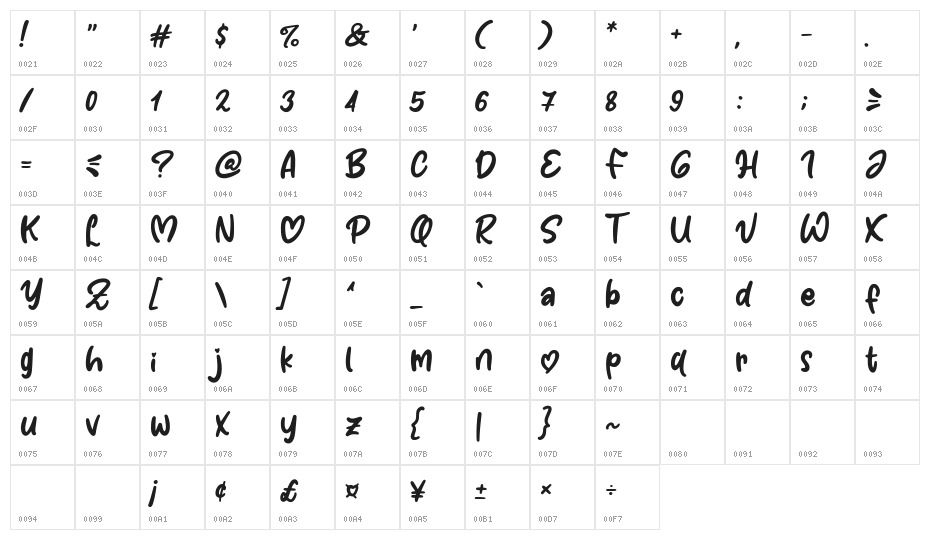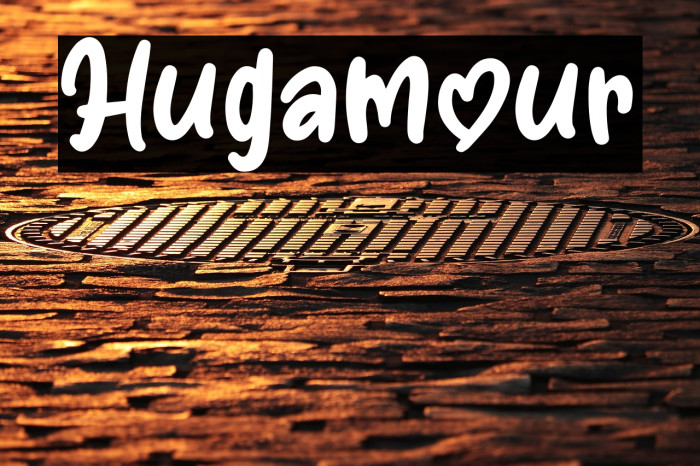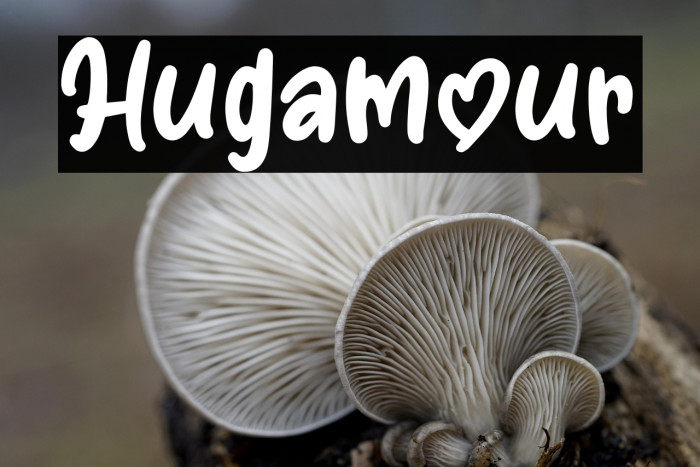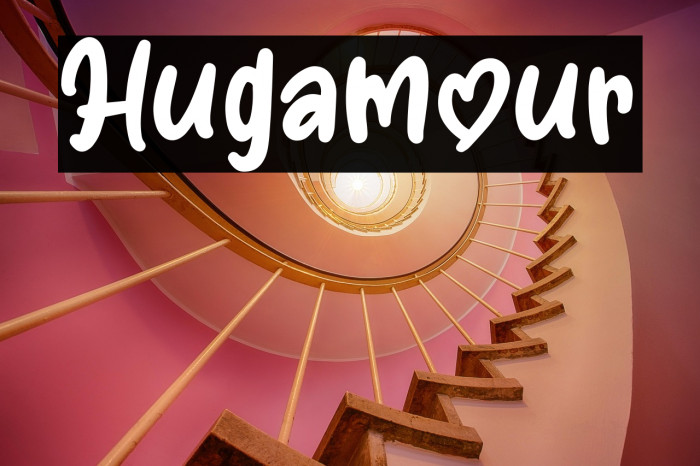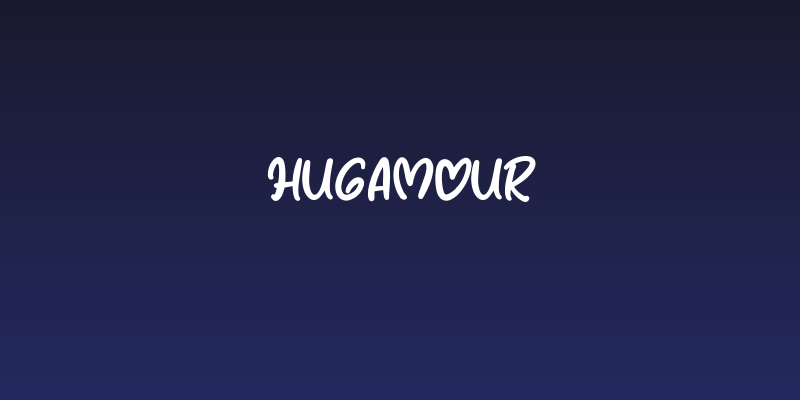
Hugamour Font
Hugamour Description
This playful and whimsical font features a bold, handwritten style with a touch of charm. The letters are rounded and slightly irregular, giving it a casual and friendly appearance. The heart-shaped elements in some characters add a unique and endearing touch. Its thick strokes and smooth curves make it highly legible, even at smaller sizes. The font's lively and energetic vibe makes it perfect for projects that require a personal and approachable feel. It includes a full set of uppercase and lowercase letters, numbers, and a variety of special characters, ensuring versatility for different design needs.
| Overall Style | Playful |
| Use Case | Logos, Headlines, Greeting Cards |
| Proposed Projects | Ideal for greeting cards, children's books, playful branding, and social media graphics. |